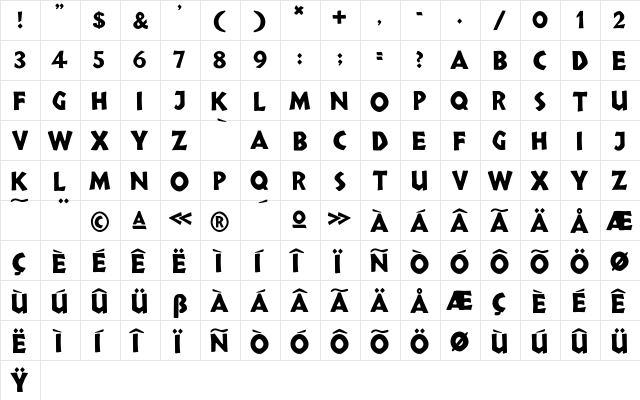
Chieftan Solid
Design Context for Chieftan Typeface
Chieftan is a composed and adaptable typeface that performs quietly and consistently across a wide range of design contexts.